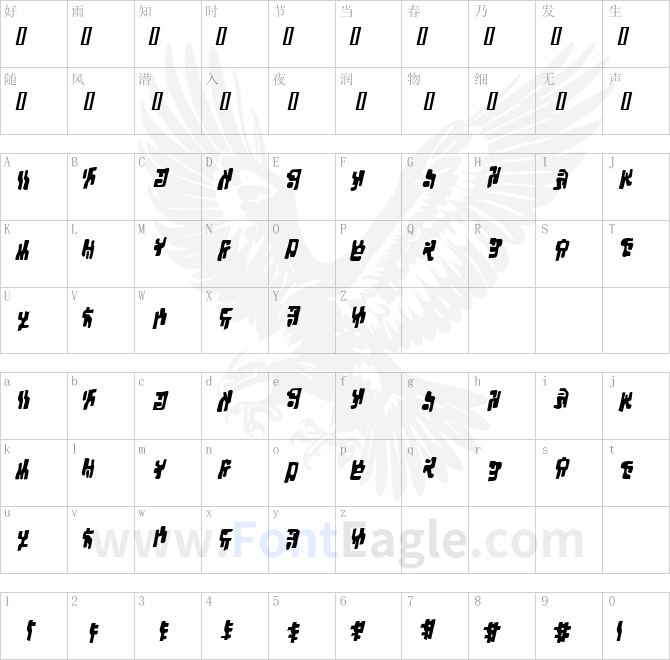
- Font name:Squiznor BB
- Font Subfamily ID:NatePiekos.Blambot.com: Squiznor BB Bold: 2009
- Font Full Name:Squiznor BB Bold
- Postscript:SquiznorBB-Bold